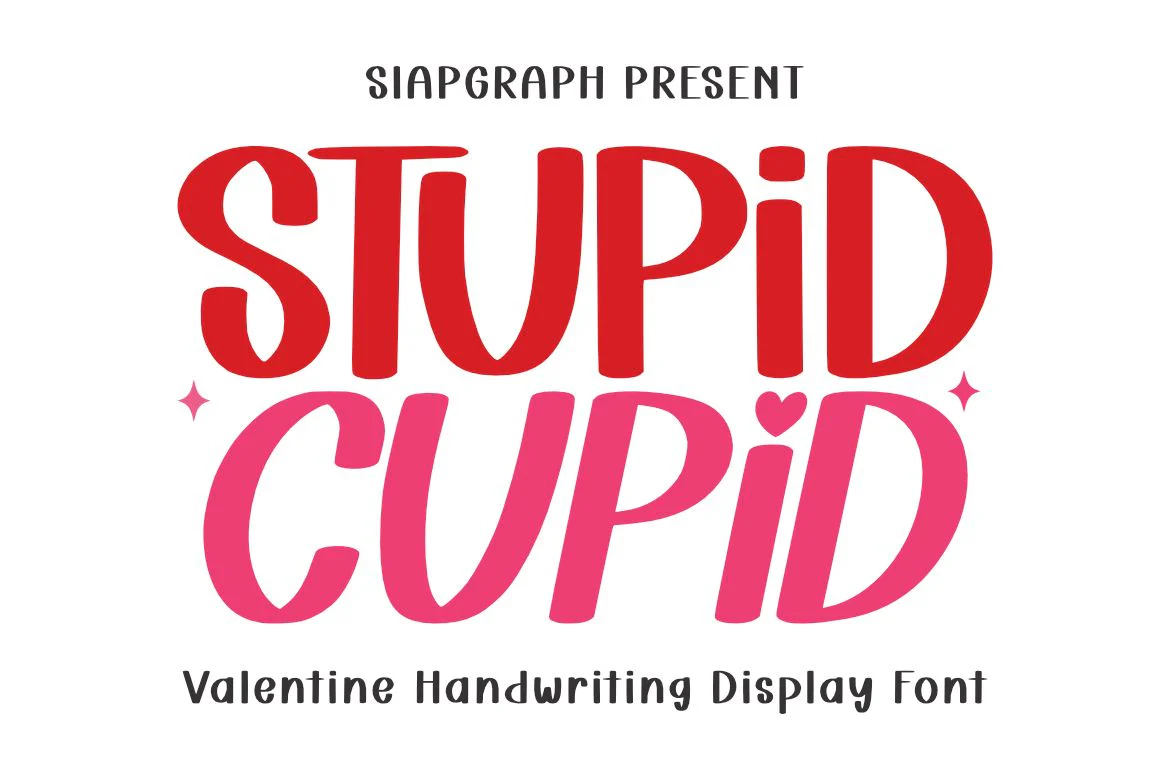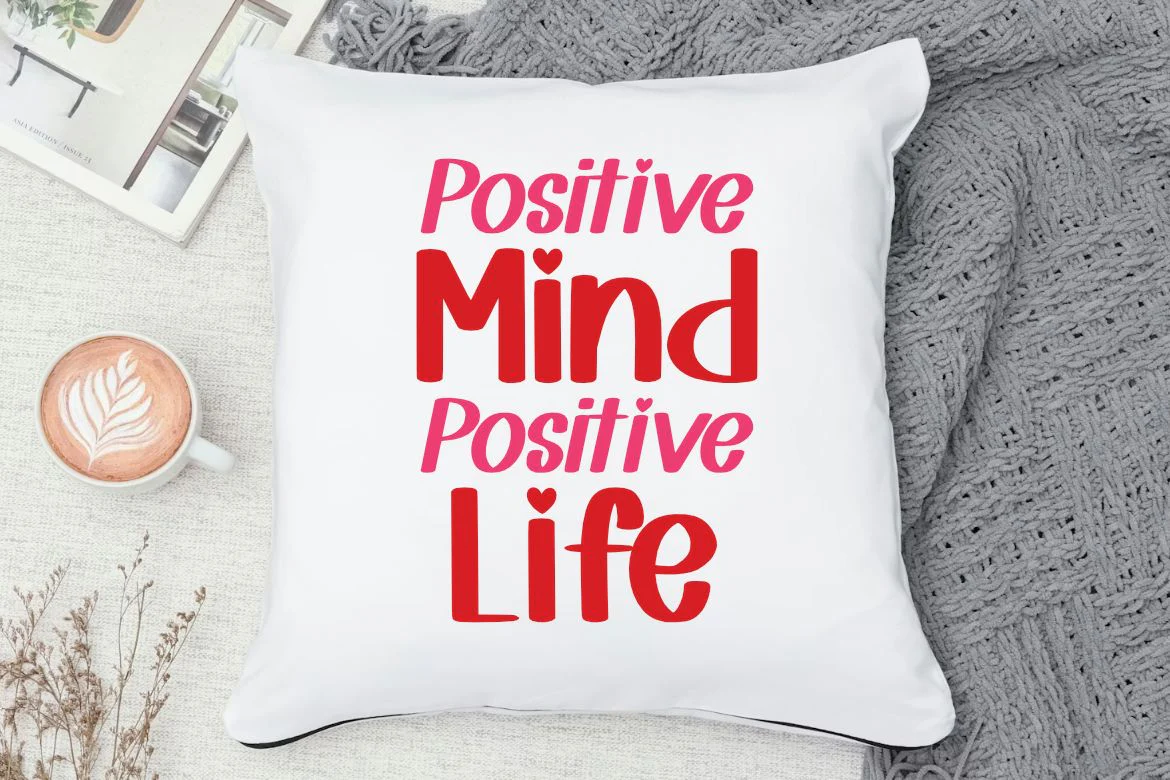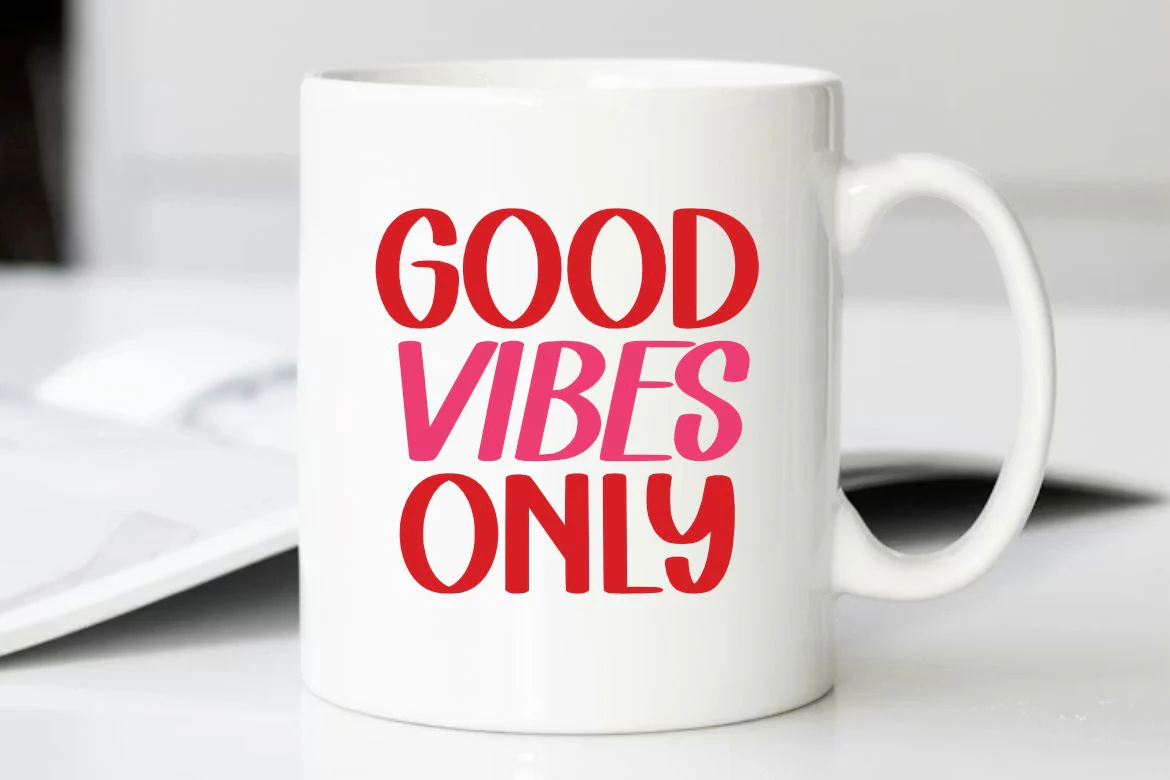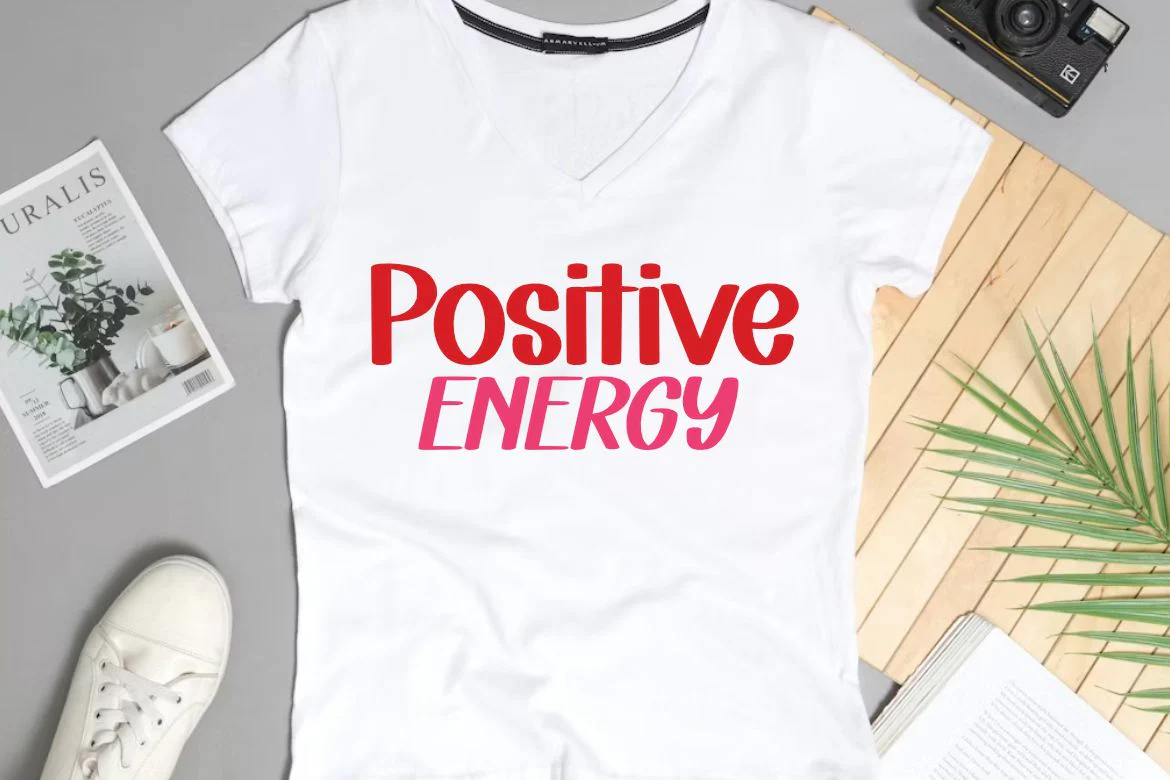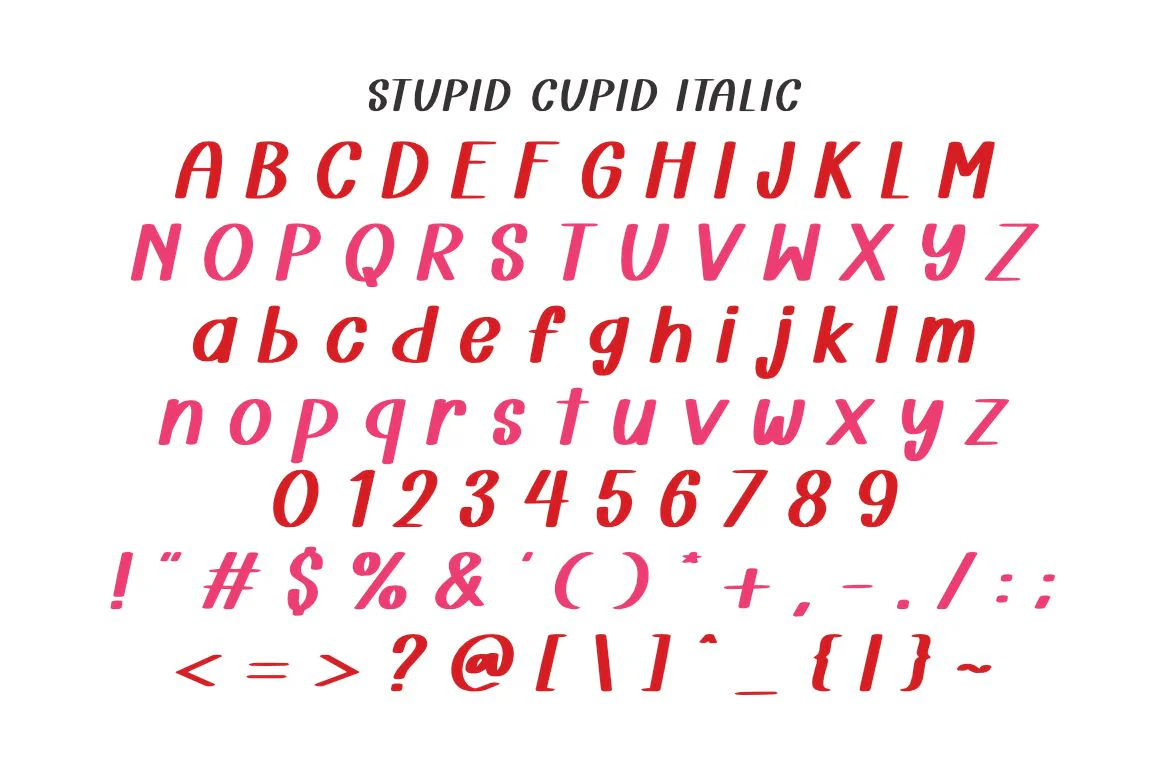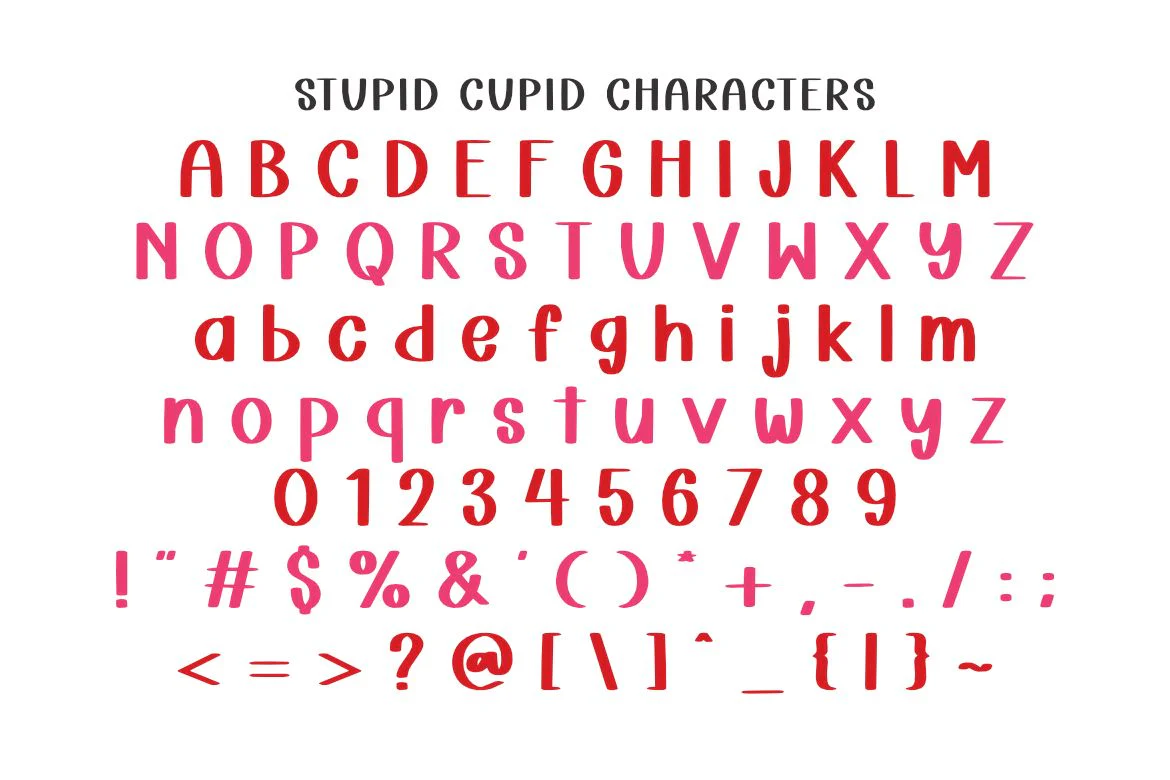
Stupid Cupid - Playful Handwriting Font
Bring your ideas to life with Stupid Cupid , a charming and cute handwriting display font that exudes playfulness! Its soft curves and bold appearance are perfect for creating eye-catching headlines, posters, social media graphics, and branding. Add a dreamy touch to your designs with this delightful font that’s both fun and versatile.